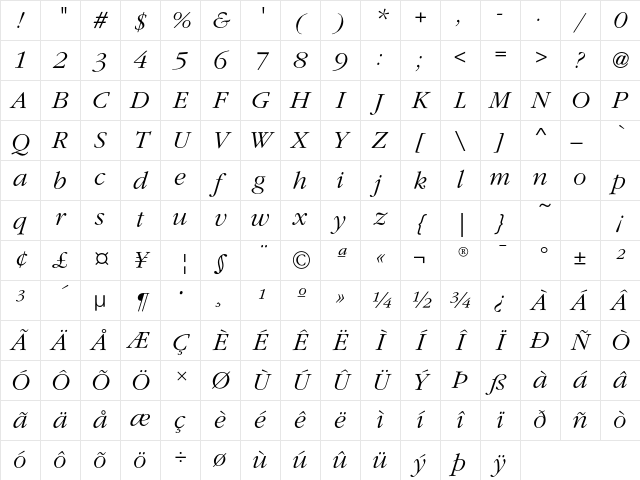
GaramondEF LightItalic
Style: LightItalic
Design Context for GaramondEF
GaramondEF is a composed and adaptable typeface that performs quietly and consistently across a wide range of design contexts. The slanted form adds forward momentum and visual energy. Its slender proportions lend an understated elegance to any composition.
Pro Tip: Use GaramondEF for emphasis, pull quotes, and subheadings where its slanted energy can add rhythm to the layout.